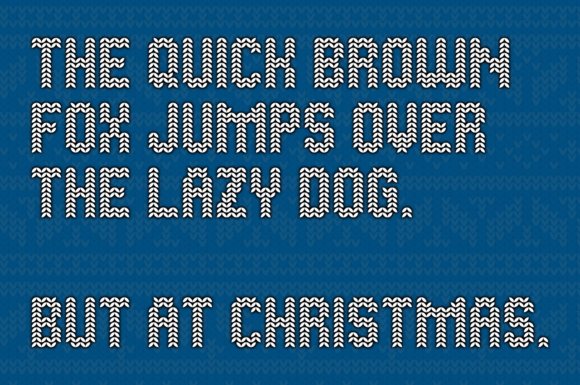
Introducing the Christmas Jumper 2023 Font: Add a Touch of Hand-Knit Charm to Your Holiday Merchandise
As the holiday season approaches, designers and crafters are on the lookout for unique and festive elements to make their Christmas merchandise stand out. If you’re looking to create ugly sweaters, t-shirts, or other holiday-themed products that exude warmth and coziness, look no further than our Christmas Jumper 2023 Font. This exclusive, hand-knitted lettering font is the perfect addition to your design toolkit, allowing you to craft products that are not only visually appealing but also carry the charm of handmade craftsmanship.
The Charm of Hand-Knit Lettering
There’s something undeniably special about hand-knitted items, from the love and care that goes into creating them to the unique texture and warmth they provide. Our Christmas Jumper 2023 Font captures this essence, offering a playful and quirky design that mimics the look of hand-knitted lettering. Each letter is carefully crafted to resemble the stitches of a knitted fabric, complete with subtle imperfections that add to its handmade appeal.
Perfect for Creating Unique Christmas Merchandise
Whether you’re a designer looking to offer clients something special for the holiday season or a crafter seeking to create unique items for personal use or sale, our Christmas Jumper 2023 Font is the perfect choice. It’s ideal for a wide range of applications, including:
- Ugly sweaters: Create custom ugly sweaters that are sure to be the talk of any holiday party.
- T-shirts and hoodies: Add a festive touch to your apparel with hand-knitted style lettering.
- Holiday cards and invitations: Stand out from the standard greeting cards with custom, hand-knitted lettering.
- Social media graphics: Add a personal touch to your holiday-themed social media posts.
Why Choose the Christmas Jumper 2023 Font?
With so many digital fonts available, what sets our Christmas Jumper 2023 Font apart? Here are just a few reasons why it’s a must-have for your holiday design projects:
- Unique Design: The hand-knitted look of this font is unlike anything you’ve seen before, ensuring your designs will stand out.
- Playful and Quirky: The playful nature of this font is perfect for creating fun and festive holiday merchandise.
- Versatile: From apparel to stationery, this font can be used for a wide range of holiday projects.
This holiday season, give your merchandise a cozy, handmade feel with our unique Christmas Jumper 2023 Font. Perfect for designers and crafters alike, this hand-knitted lettering font offers a playful and quirky way to create standout holiday products. Whether you’re making items for personal use, as gifts, or for sale, our font is sure to add a touch of warmth and coziness to your designs. So why wait? Join the best Christmas trend this year and start creating your own hand-knitted style holiday merchandise today!